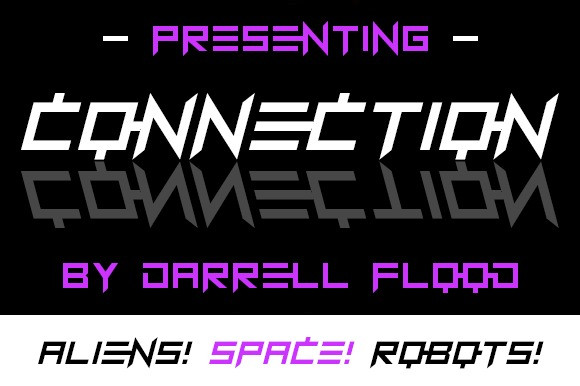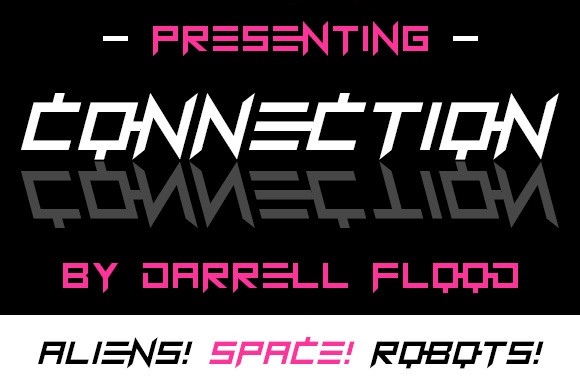
Connection Font
Connection Display Font, a sharp, modern font in an edgy, alien style. Perfect for robot encounters, high tech themes and general sci-fi use!